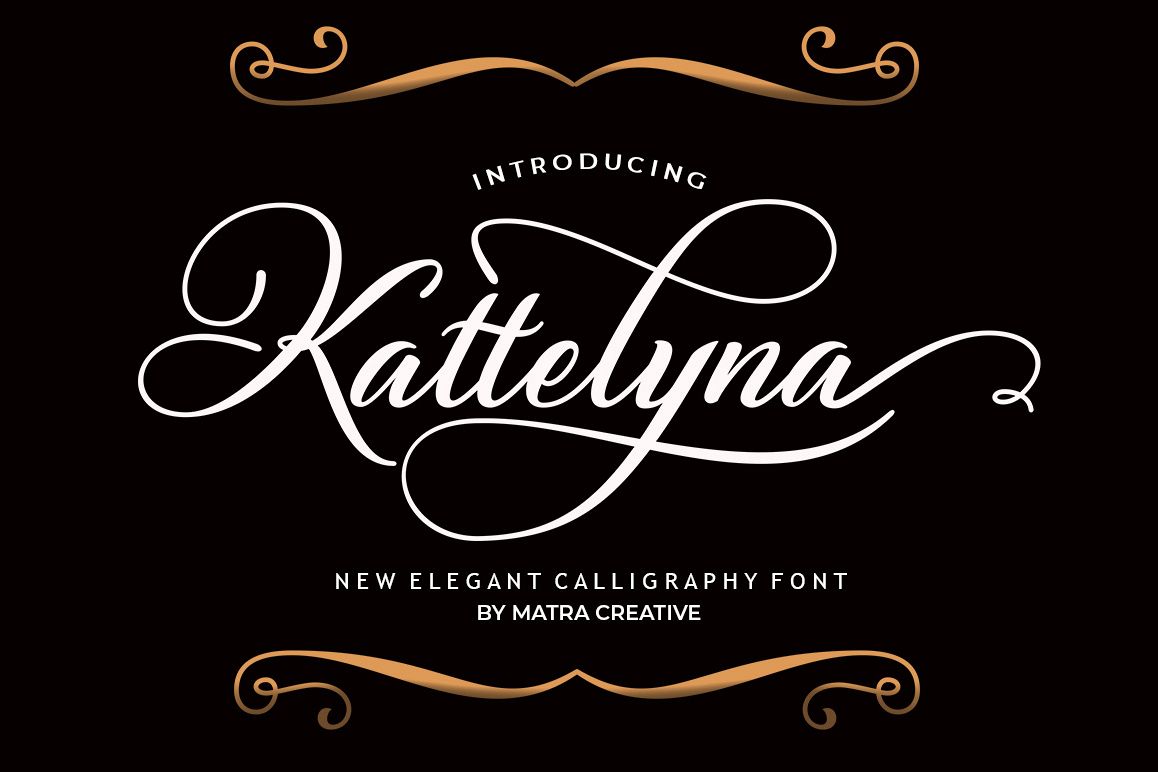
Kattelyna Script
Kattelyna Font is a formal script font with multilingual support. It is ideal for wedding invitations, magazines, social media, restaurant menus, greeting cards, birthday invitations, headers and more. This font is equipped with a complete set of lowercase and uppercase characters, various kinds of punctuation ligatures, numbers and and multilingual support.